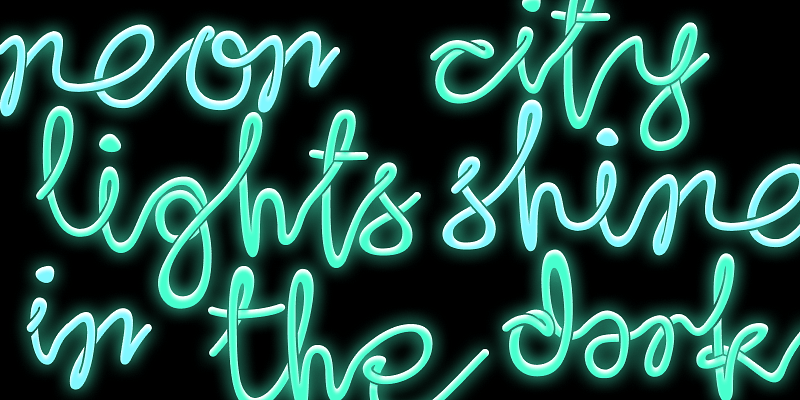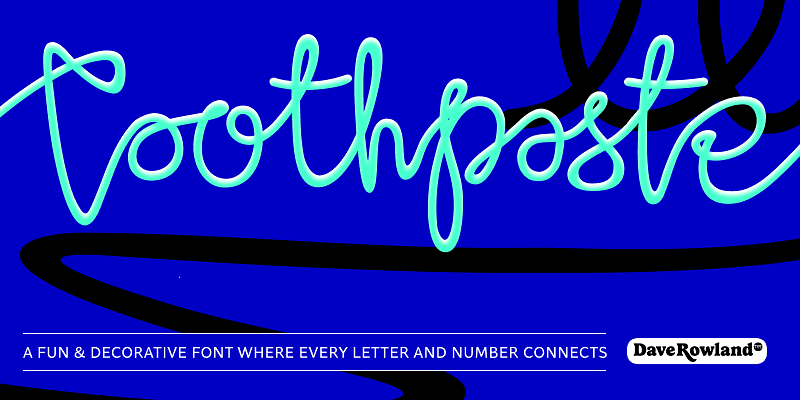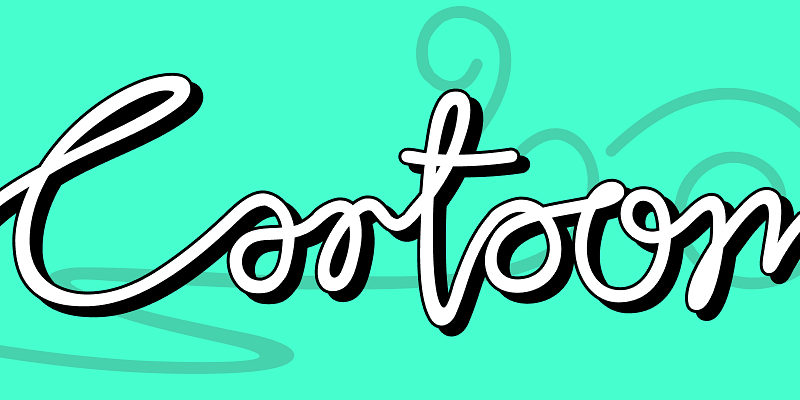
Toothpaste is a decorative twisty script teetering trapezelike on the edge of legibility. Every letter and number connects, and numerous contextual alternates and ligatures keep it all running smoothly. Regular is a single continuous line, and Two shows the line twisting and turning over and under itself, adding depth. Toothpaste is ideal for fun websites, scrapbooks, and party invitations. Try it in brighter colors on darker backgrounds for a neon effect or with a stroke for something cartoony.